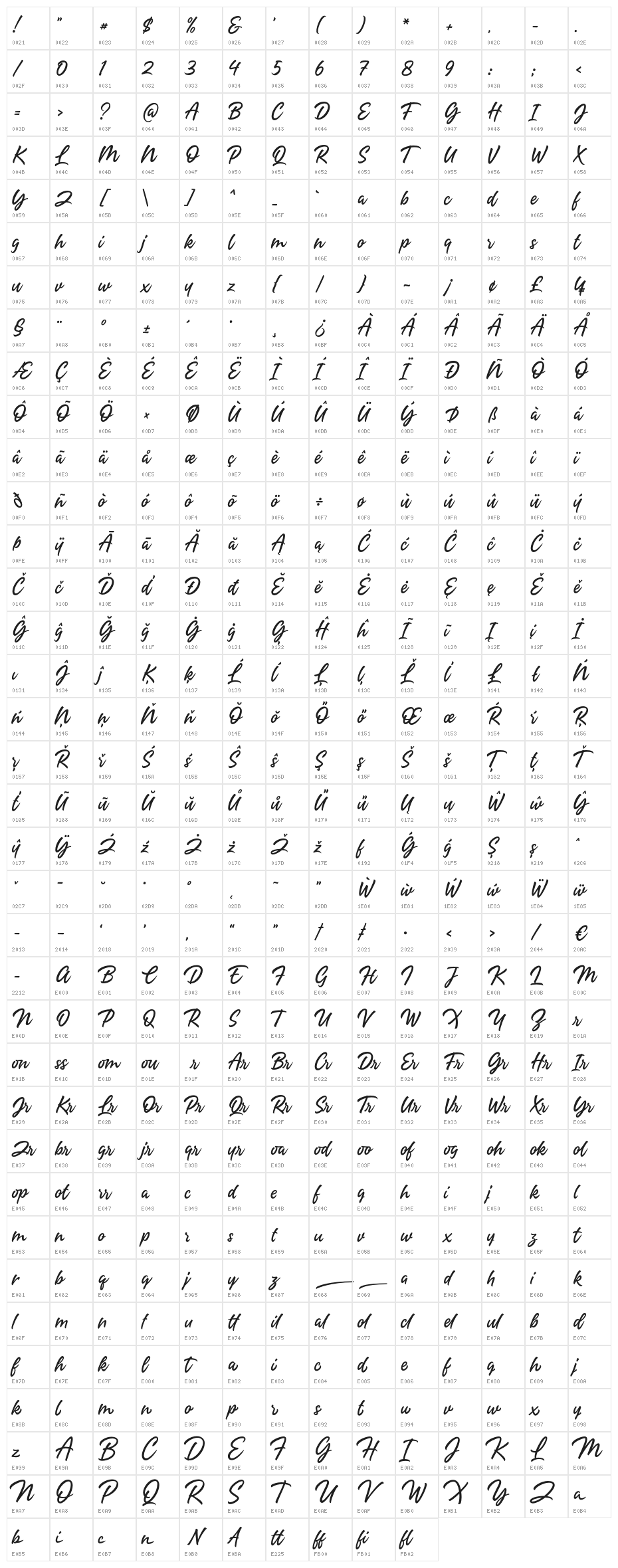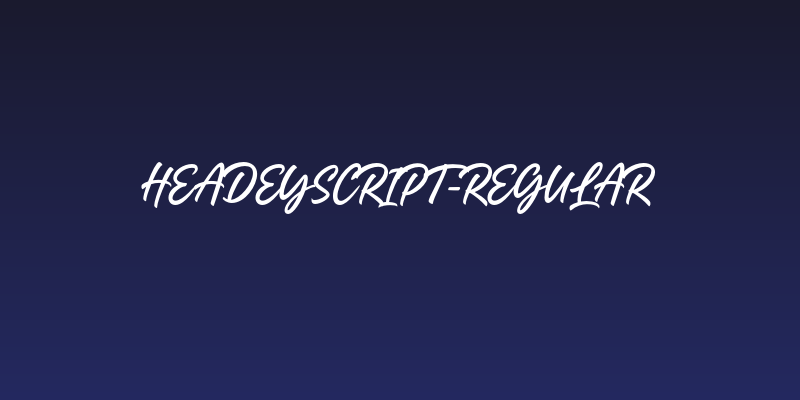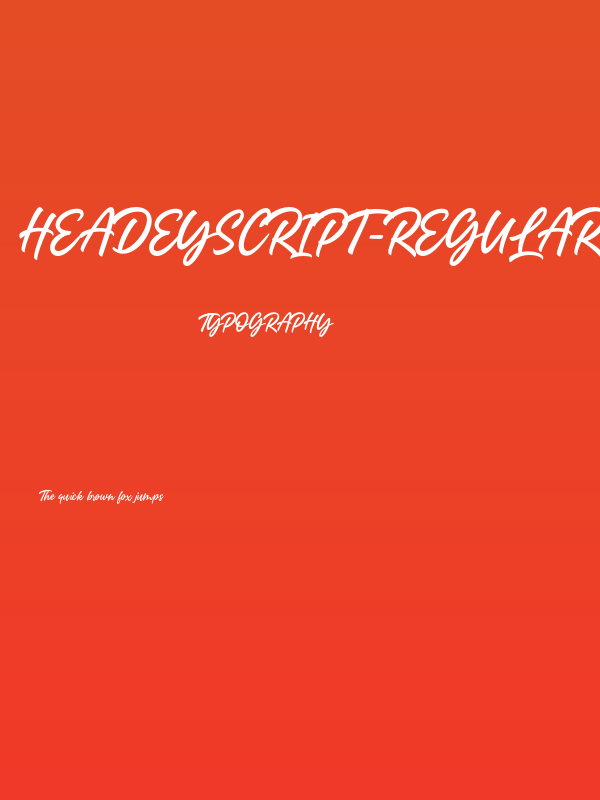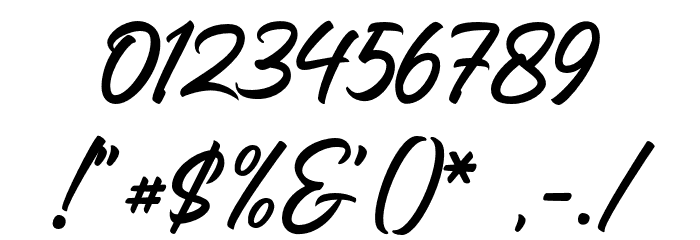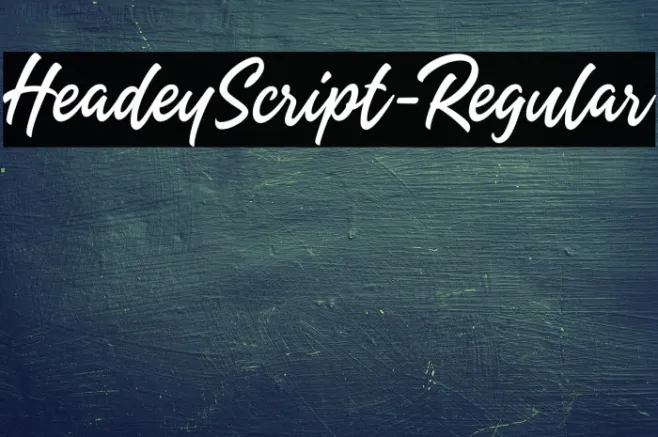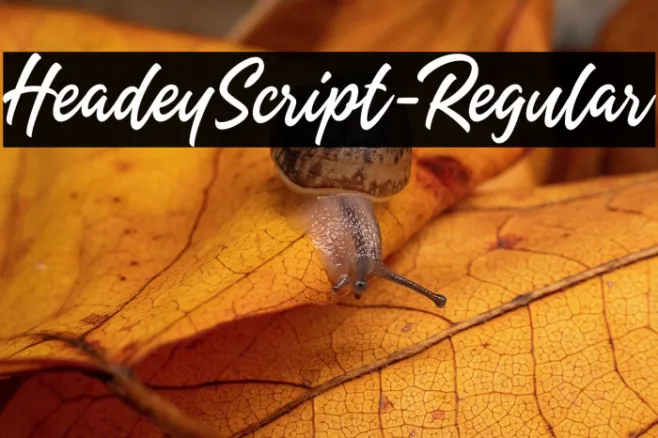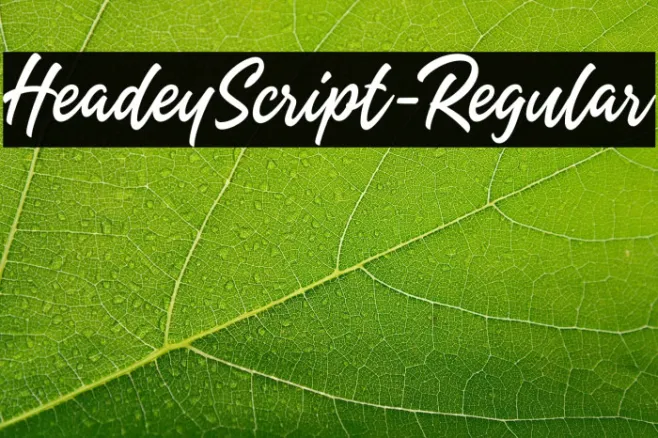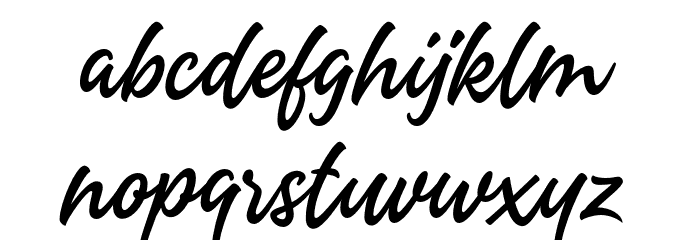
HeadeyScript-Regular Font
HeadeyScript-Regular Description
This font features a dynamic and flowing script style, characterized by its smooth, cursive strokes and elegant curves. The letters are interconnected, creating a seamless and fluid appearance that mimics natural handwriting. The uppercase letters are bold and prominent, while the lowercase letters maintain a consistent rhythm and balance. The numerals and special characters are crafted with the same attention to detail, ensuring a cohesive look across all elements. This font exudes a sense of sophistication and creativity, making it suitable for a variety of design applications.
| Font Family | Headey Script |
| Proposed Projects | Ideal for wedding invitations, branding, logos, and greeting cards. |